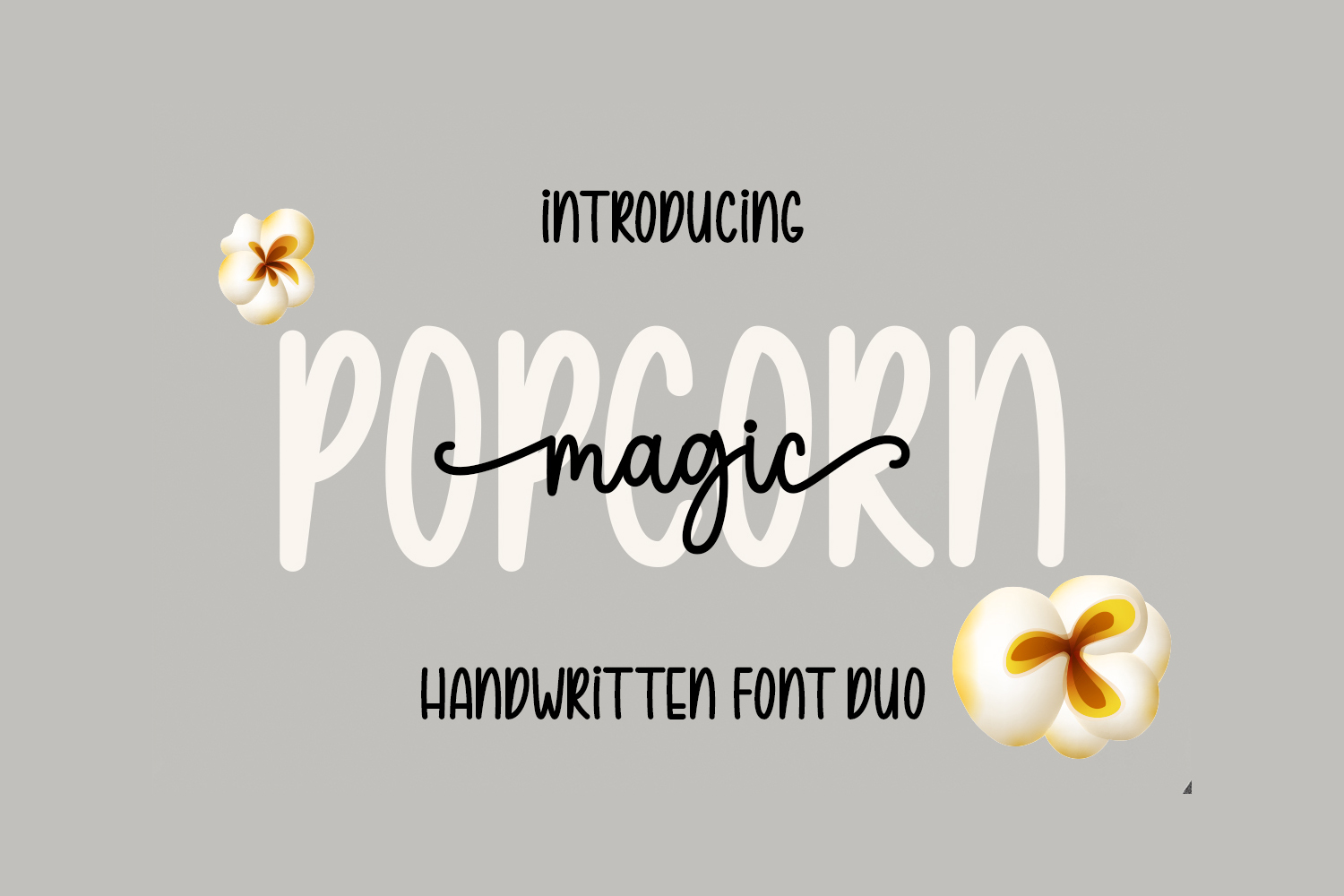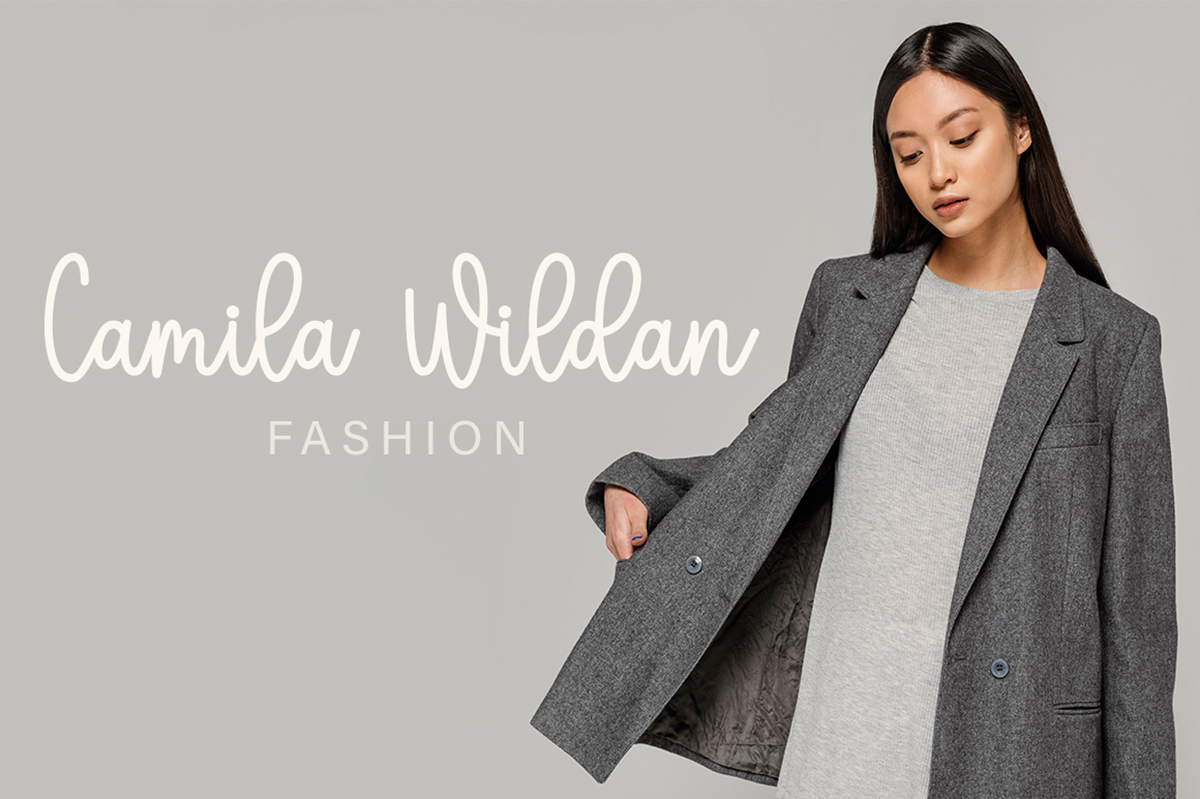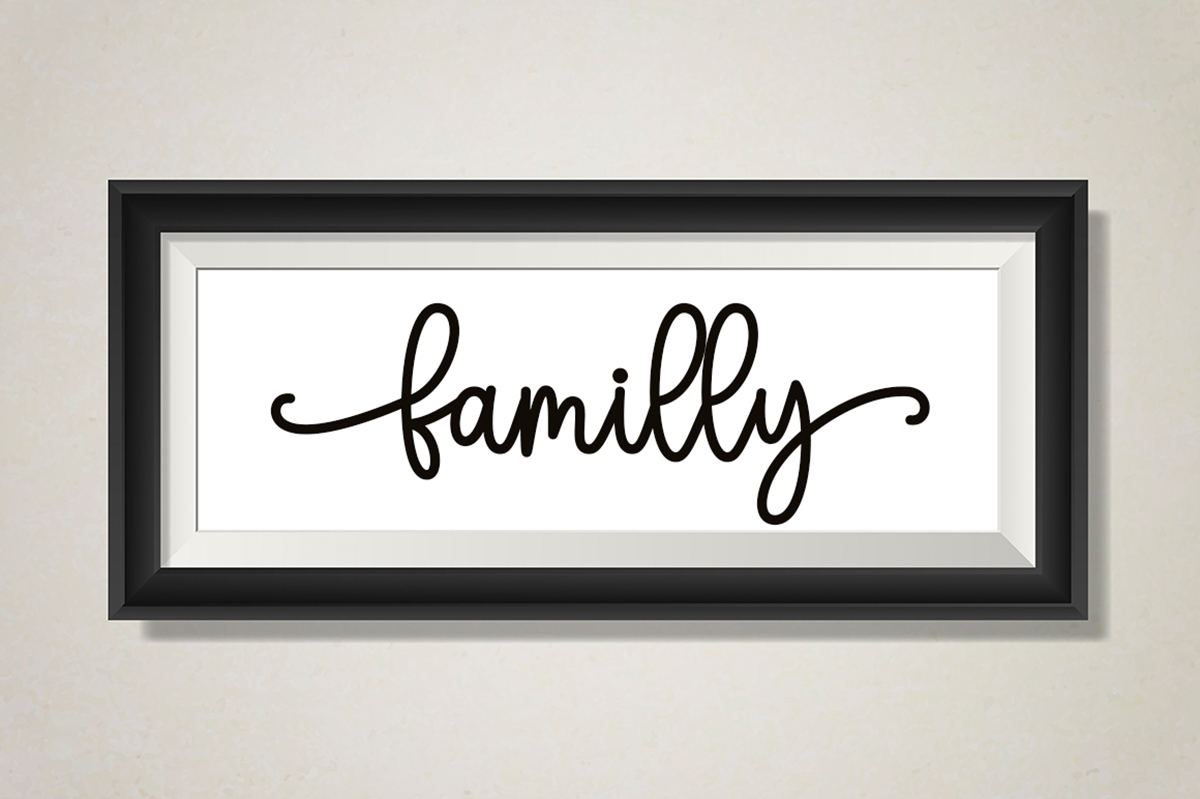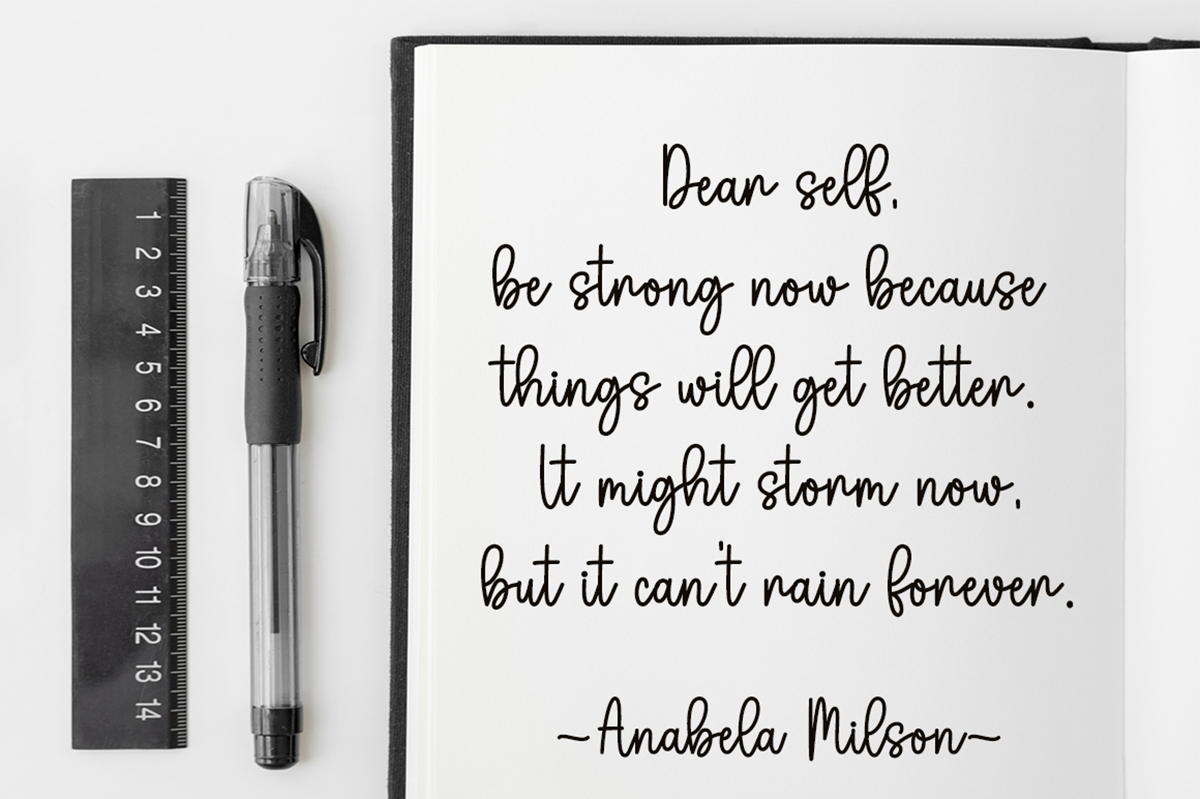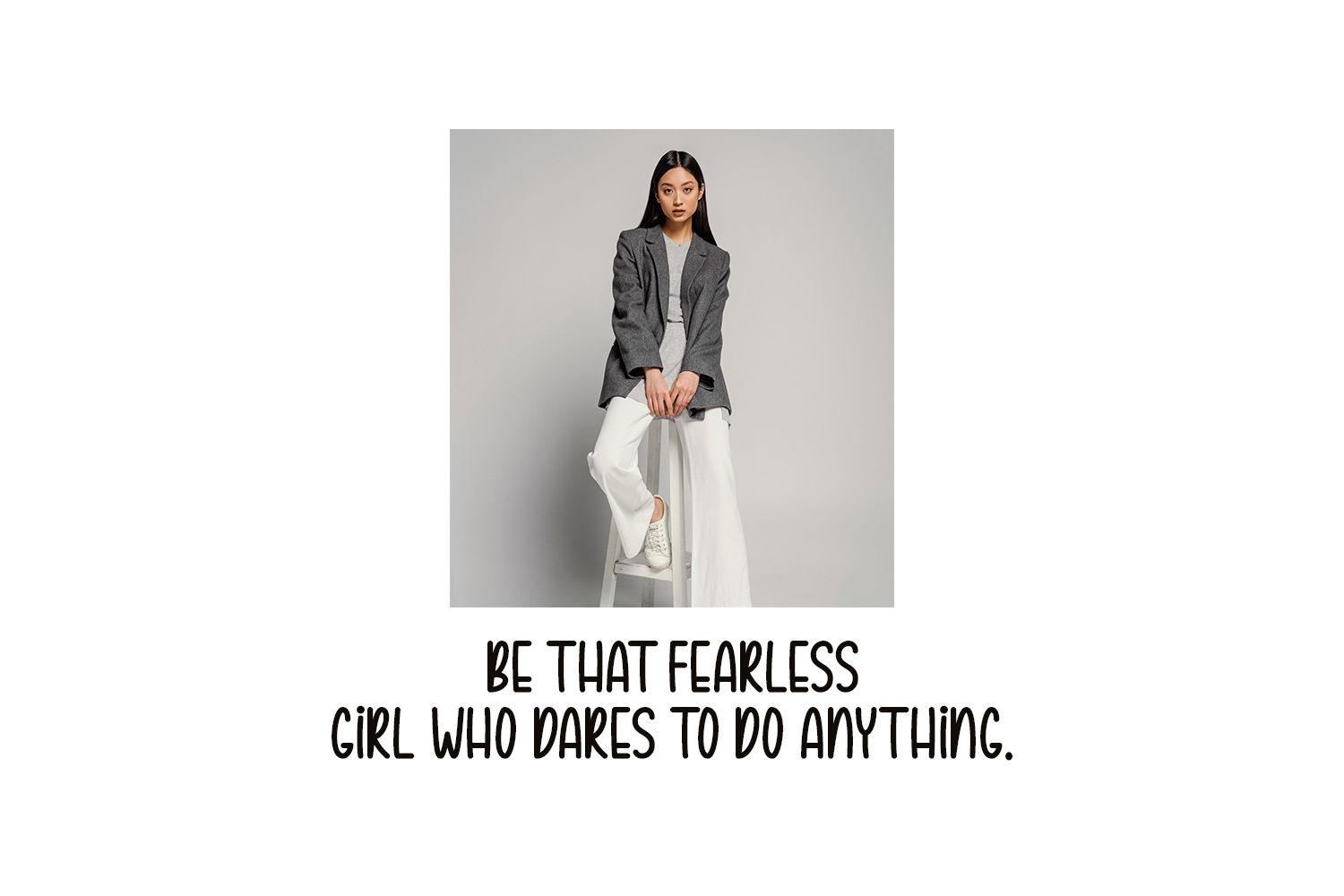
Popcorn Magic Free Font
Popcorn Magic Free Font is a stylish and delicate duo font (sans serif and script) suitable for a wide spectrum of applications. From greeting cards to headlines, this font will guarantee a romantic touch to each of your creations. This free typeface was designed by a talented DN Creative. If you like it don’t forget to check out the full version.